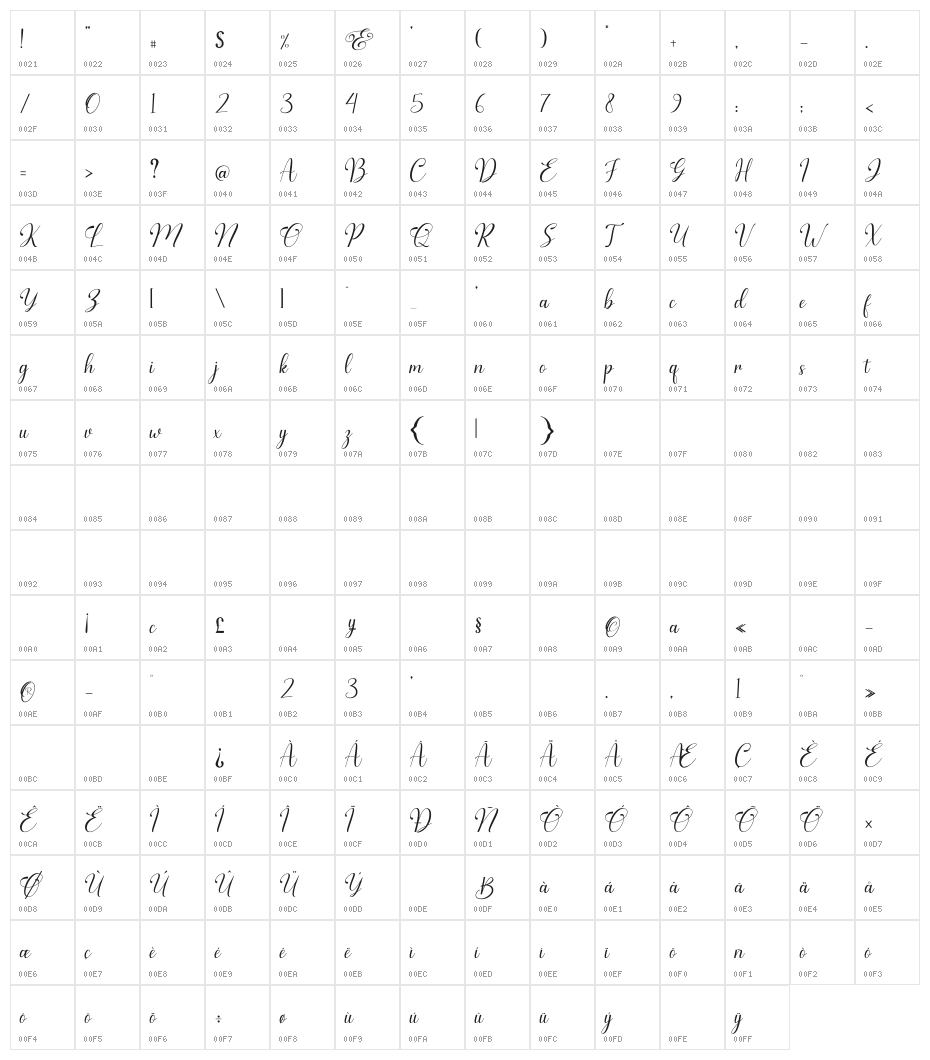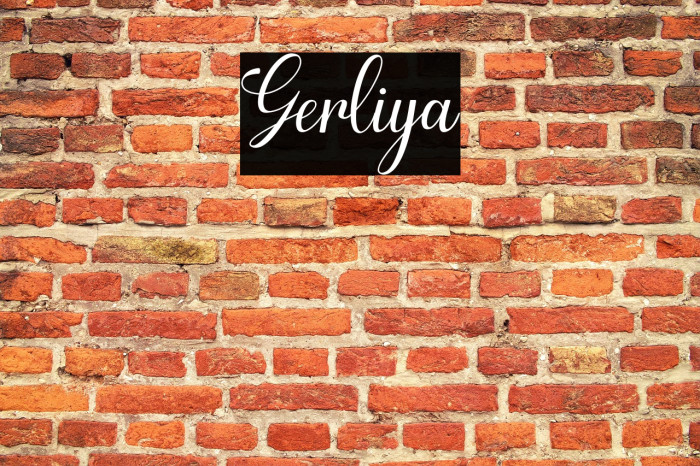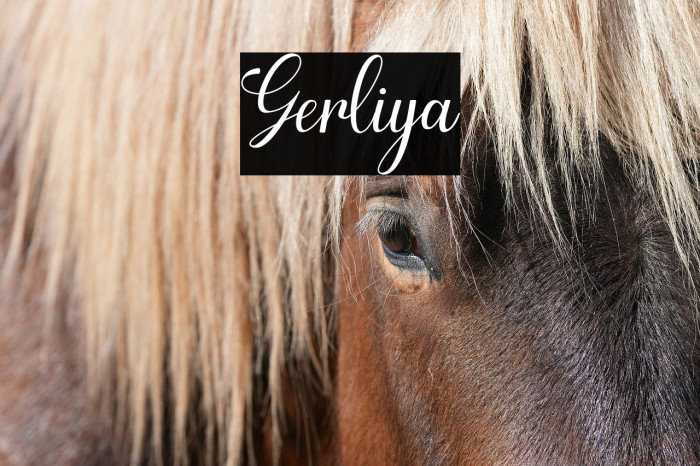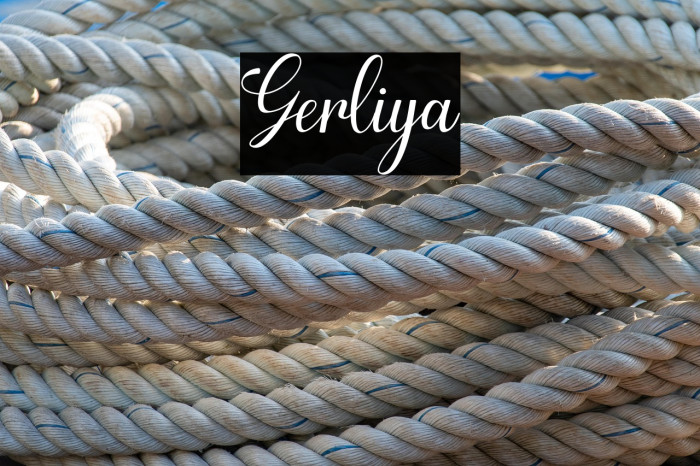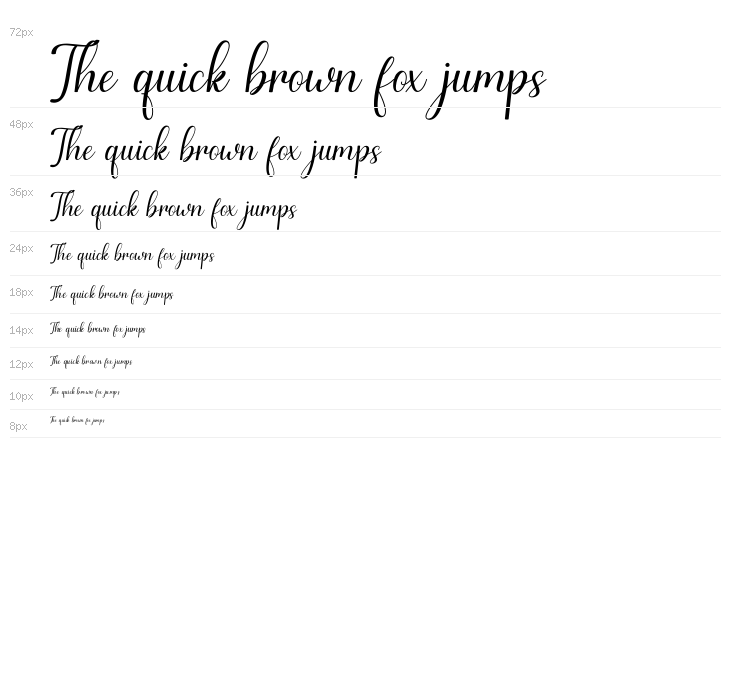
Gerliya Font
Gerliya Description
This elegant script font features a flowing, cursive style with high contrast between thick and thin strokes. The characters are intricately designed with graceful curves and loops, giving it a sophisticated and artistic appearance. The uppercase letters are particularly elaborate, with sweeping lines that extend beyond the baseline and cap height, while the lowercase letters maintain a more restrained yet still decorative form. The numerals and special characters are consistent with the overall style, ensuring a cohesive look across all text. This font is ideal for projects that require a touch of elegance and flair.
| Overall Style | Elegant |
| Use Case | Logos, Invitations, Decorative text |
| Proposed Projects | Wedding invitations, luxury branding, elegant packaging, greeting cards. |